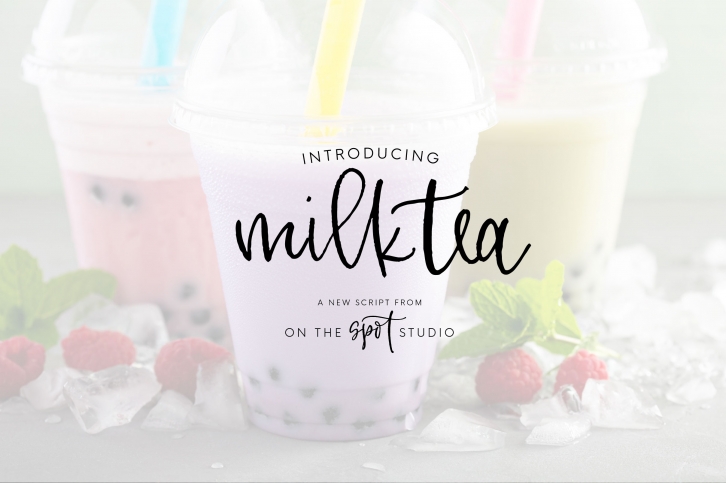
MilkTea is a great font that was designed by On The Spot Studio. Imagine the amount of combinations you can create using this font! The archive is 16.66 MB and it was released on January 23, 2018. MilkTea looks beautiful on wedding invitations, greeting cards, logos, posters, labels, t-shirt designs, logos, business cards and is perfect for use in ink or watercolor works, fashion, magazines, packaging and food menus, children's books and more!